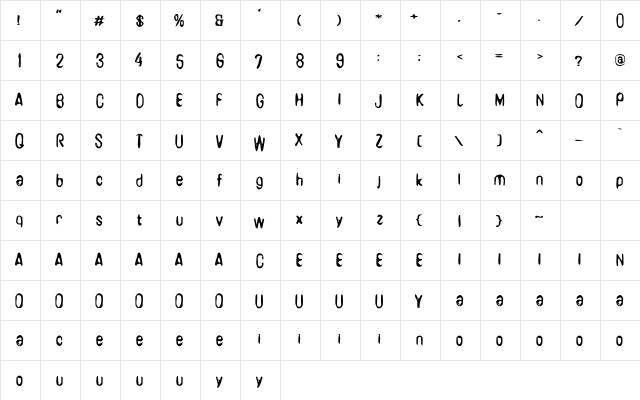
Dulimarlanda Regular
| Foundry | Alghul |
| Designer | Alghul |
Design Context for Dulimarlanda Typeface
Dulimarlanda offers clean, dependable letterforms without strong stylistic allegiance, making it a practical choice for designers who need flexibility.